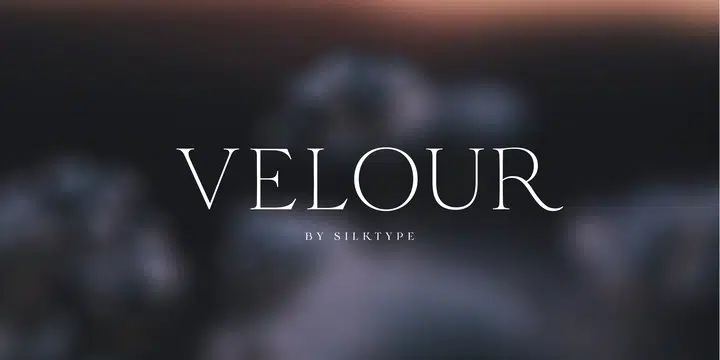
Velour Font
Velour Font is perfect for luxury fashion branding, upscale product packaging, elegant logos, premium cosmetic labels, sophisticated event invitations, high-end editorial designs, boutique hotel marketing, jewelry branding, refined web interfaces, exclusive restaurant menus, opulent stationery, and any design project requiring a sumptuous and luxurious aesthetic.
What makes Velour Font exciting is its rich luxurious character that evokes the soft elegance and premium quality of velvet fabric. The font's smooth letterforms and refined styling create an atmosphere of sophistication and indulgence, making it ideal for brands targeting affluent audiences who appreciate quality and exclusivity. Its opulent presence communicates prestige and desirability, helping designers create visually compelling content that resonates with consumers seeking premium experiences and refined taste.
The Velour Font family typically includes uppercase and lowercase characters, numerals, punctuation marks, and elegant variations that enhance its luxurious appeal.